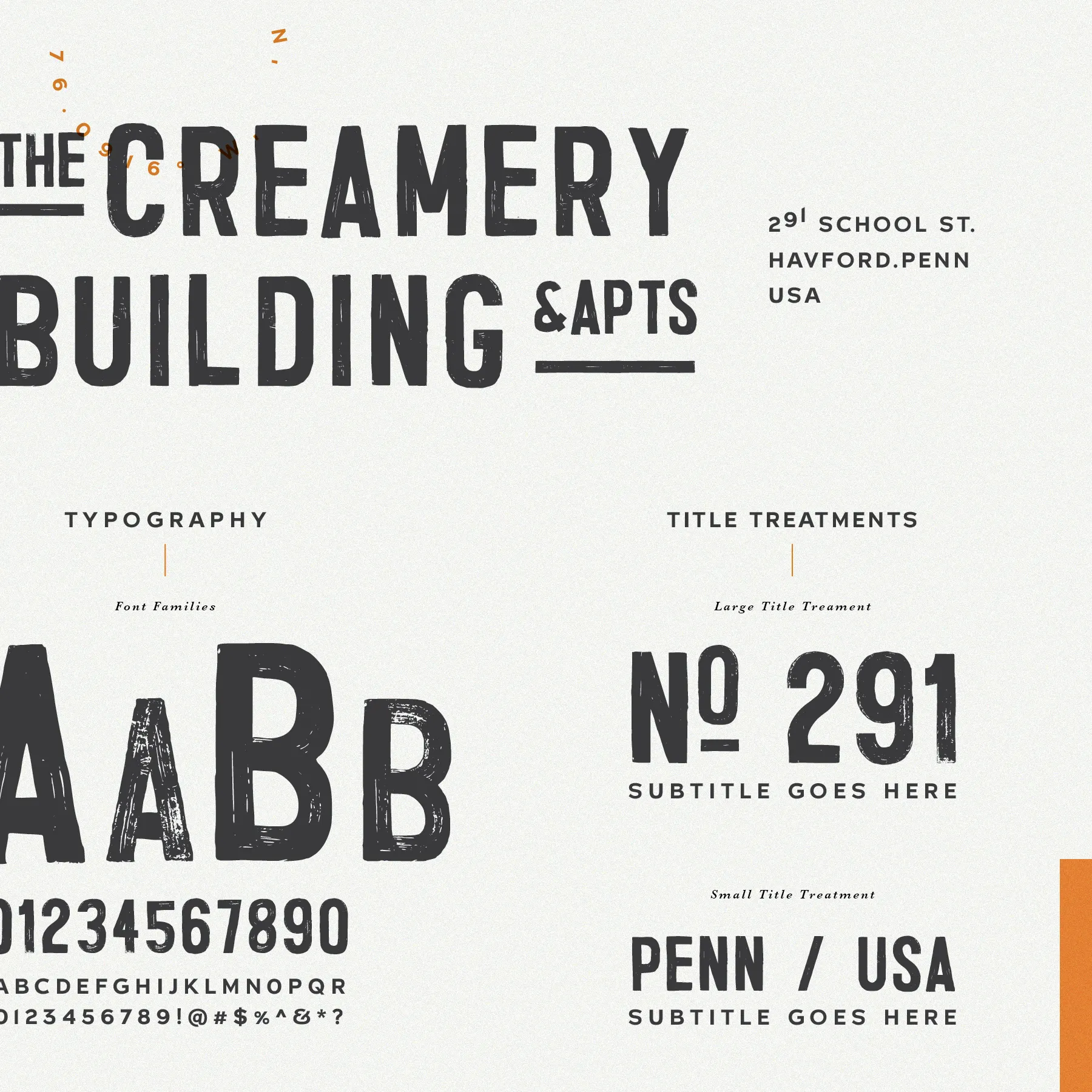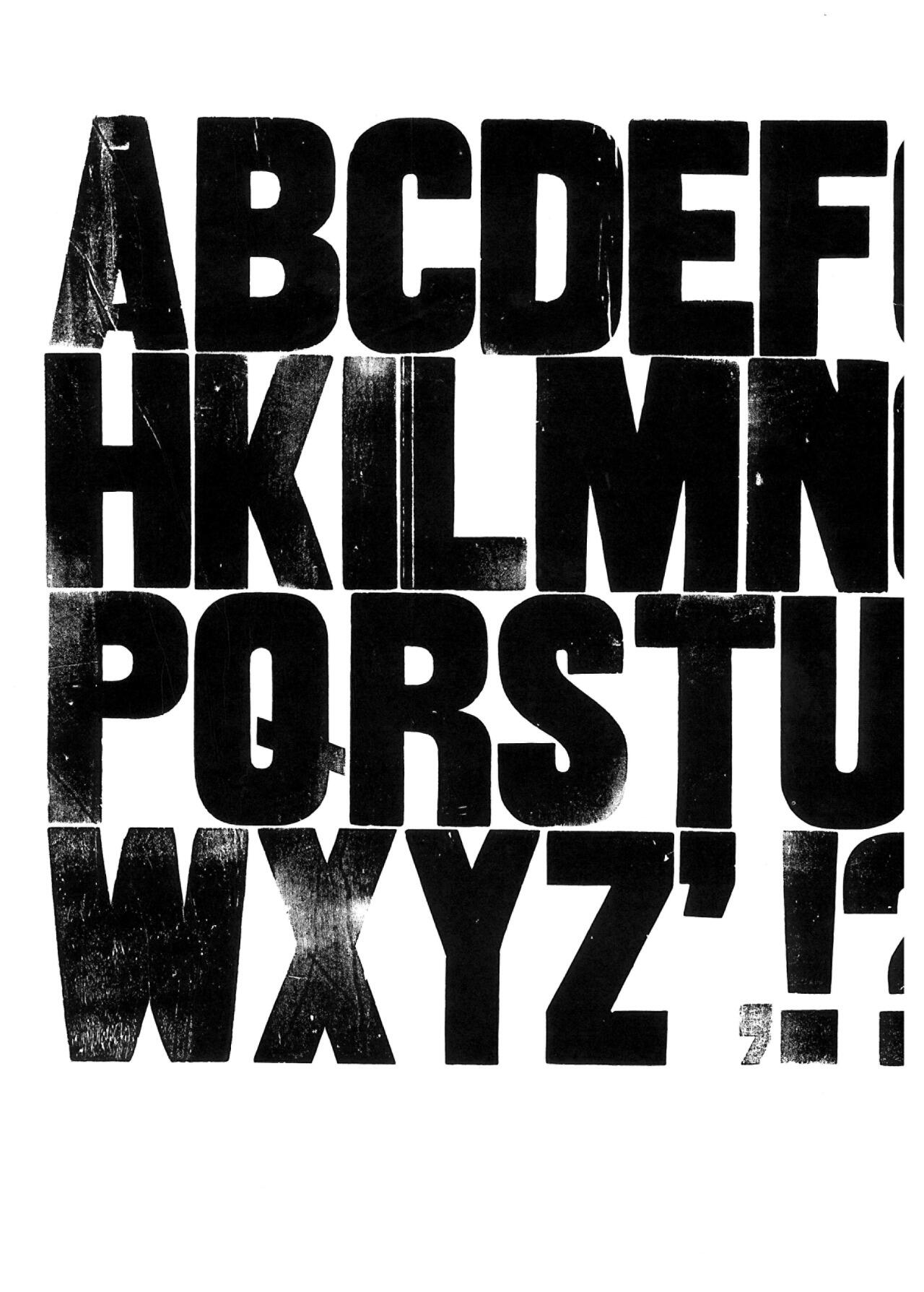
Need help identifying original source font for this distressed sans
Hey guys, got this off Pinterest, I believe it's a woodblock/letterpress. Am looking for the original source of this font. Planning to recreate this distressed effect for a project. Thanks in advance! :)
Ps. If you have a similar looking distressed type of font to recommend, I'd appreciate that too! :)
Strongbox looks like a non-distressed version of the typeface.
Ok, I've got 2 more beautiful examples that need identifying (not sure if I should have made a new post, just didn't want to clutter up the forum).tumblr_ncpm8l49BT1qzqavpo1_1280.jpg
Your second sample is set in Trincha.